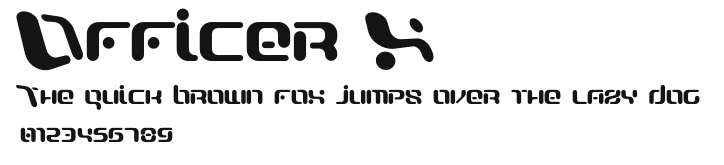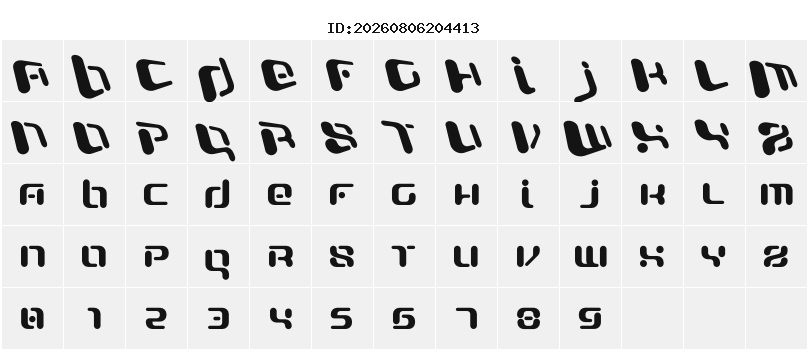
Officer X Preview
• Font Name: Officer X
• Full Font Name: Officer X
• Designer: ViNZ
• Manufacturer: ViNZ
About Officer X.otf
Officer X.otf is a modern, elegant sans-serif font designed for ultimate readability and visual harmony. Perfect for branding, headlines, web design, and print materials.